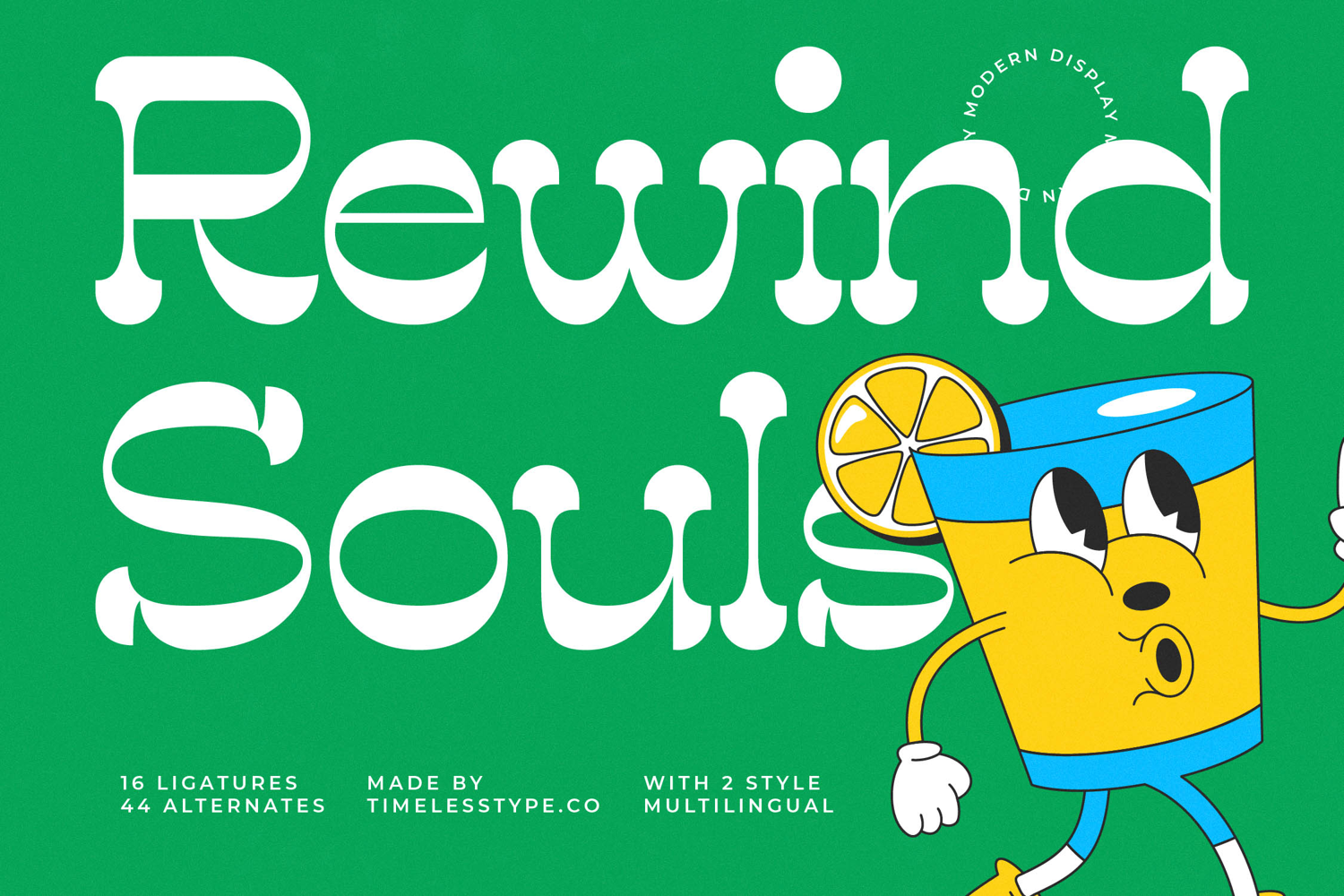
Rewind Souls - Modern Display Font
Discover a font that effortlessly blends retro charm with contemporary flair. Font Rewind Souls - Modern Display Font Groovy captivates with its distinctive high-contrast strokes and whimsical curves, evoking a vibrant, nostalgic aesthetic. This display typeface is meticulously crafted to command attention, injecting personality and an unforgettable visual impact into any design project. Its bold presence ensures your message is both seen and felt, creating an immediate, engaging connection.
Unlock unparalleled creative potential with remarkable flexibility. Font Rewind Souls - Modern Display Font Groovy comes equipped with 16 stylistic ligatures and 44 expressive alternates, offering designers a rich toolkit for unique typographic expressions. These extensive features allow for endless customization, enabling you to tailor headlines, logos, and branding elements with bespoke elegance and a truly individualized touch, making every composition stand out.